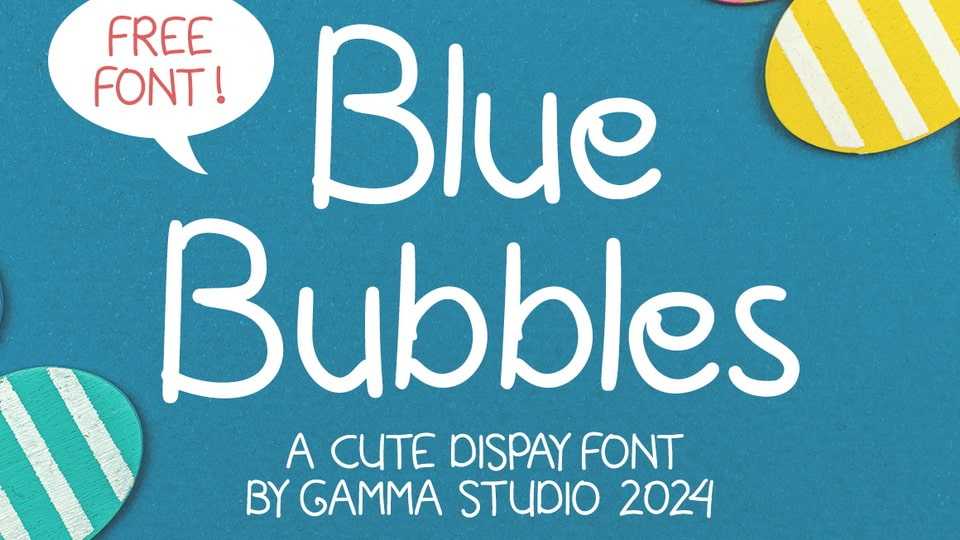
Download Blue Bubbles font, a cute and playful hand-drawn typeface that radiates joy and whimsy with every stroke. Inspired by the carefree doodles of childhood, this font captures the essence of playful creativity in a simple and charming style.
Designer: Gamma Studio